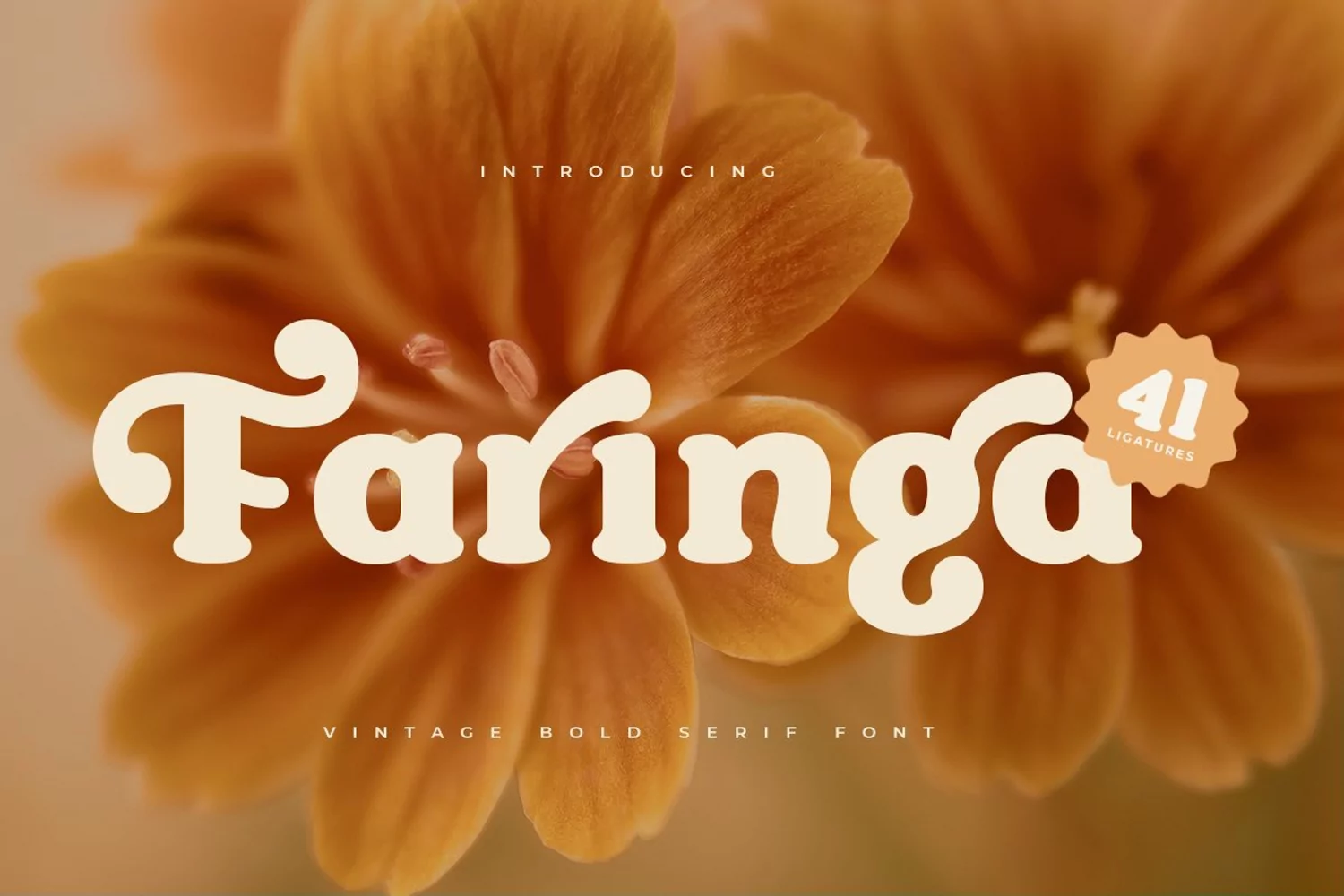
Faringa is a New Bold Vintage Font with Retro style inside.
An extraordinary style with vintage and retro in serif font, to make your design more standout. As our focus that analyze any typeface that helps to leverage any logo design to look more modern and unique. We prepared this font with any vintage characters to help you create creative style.